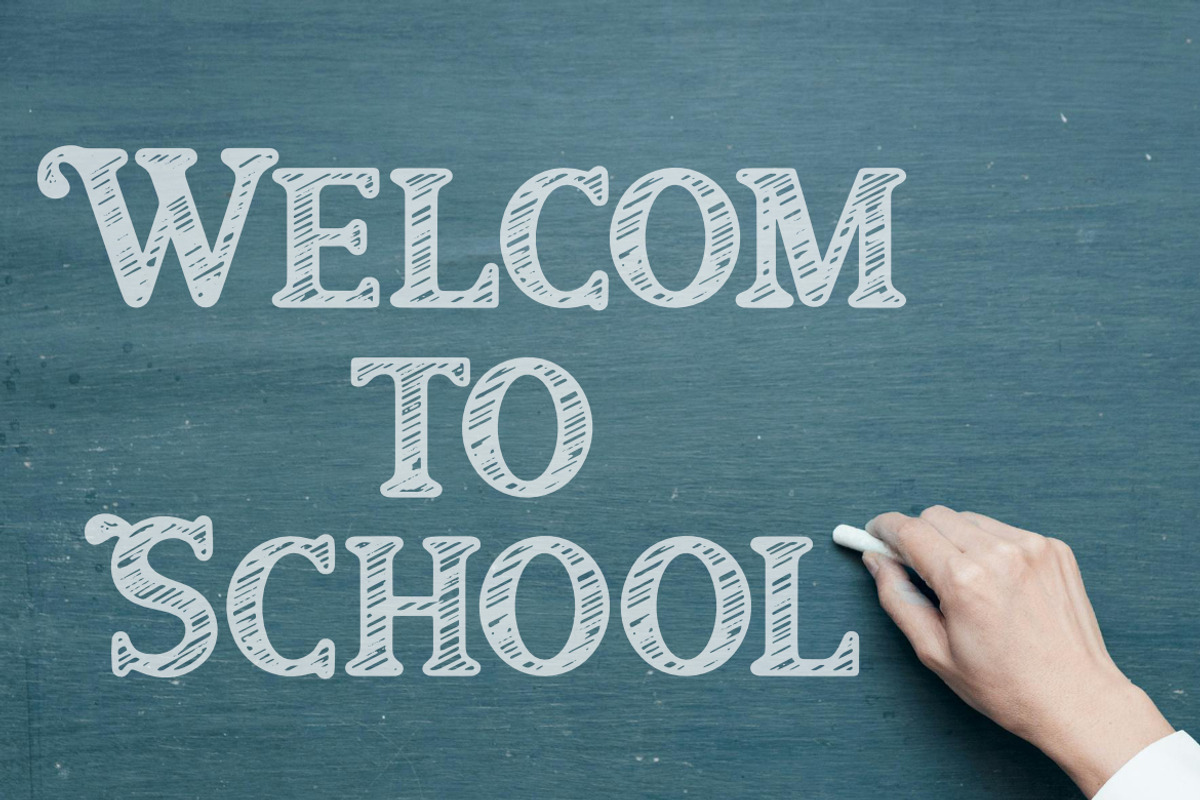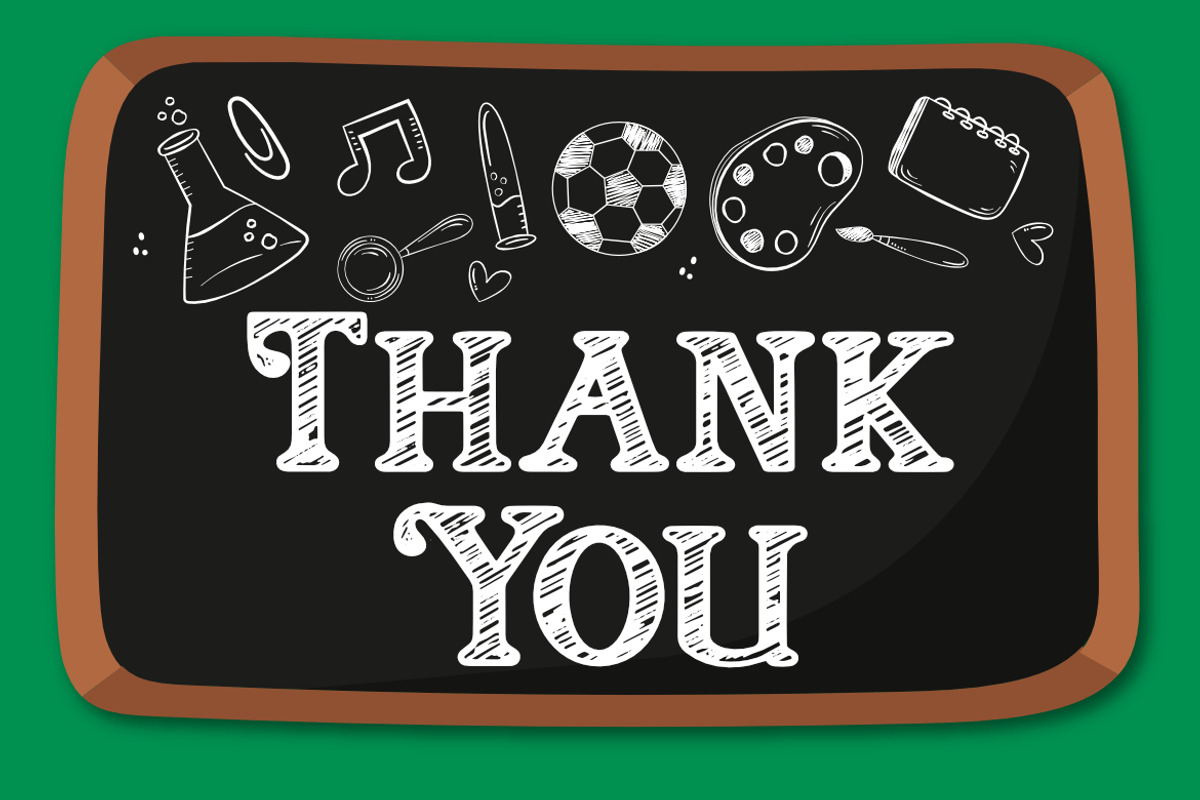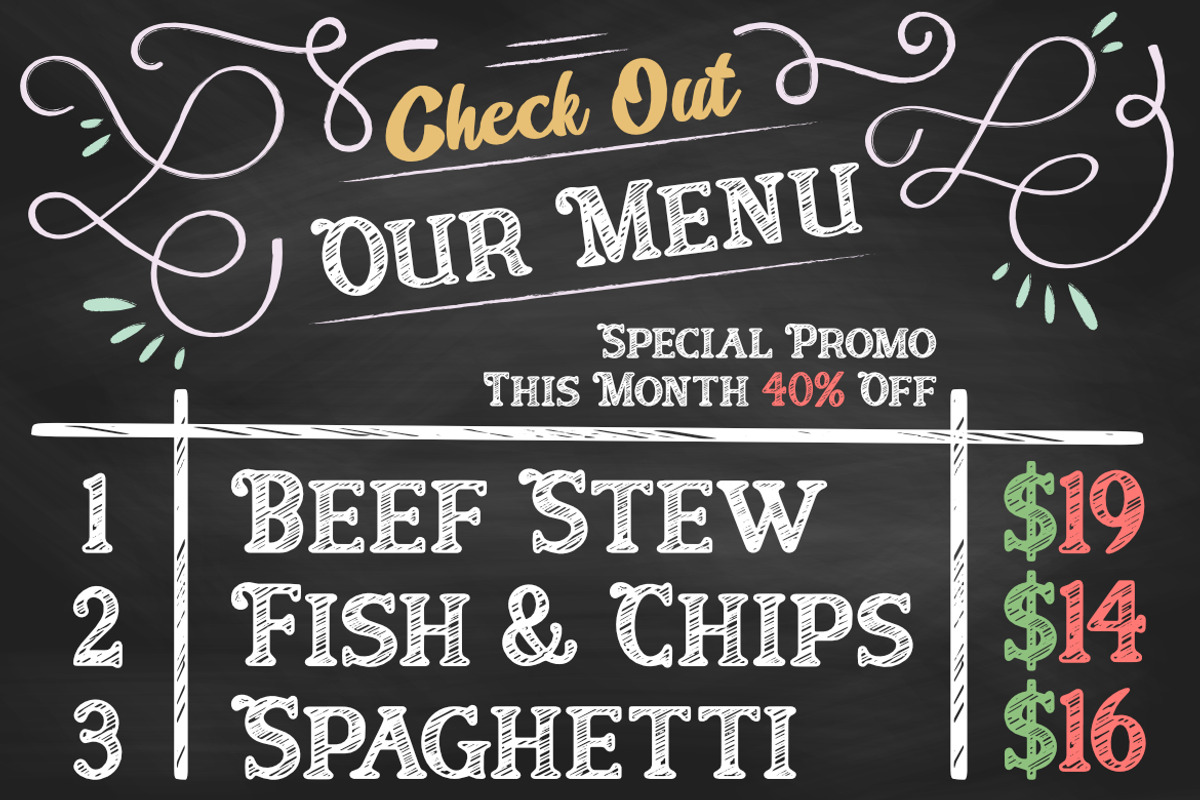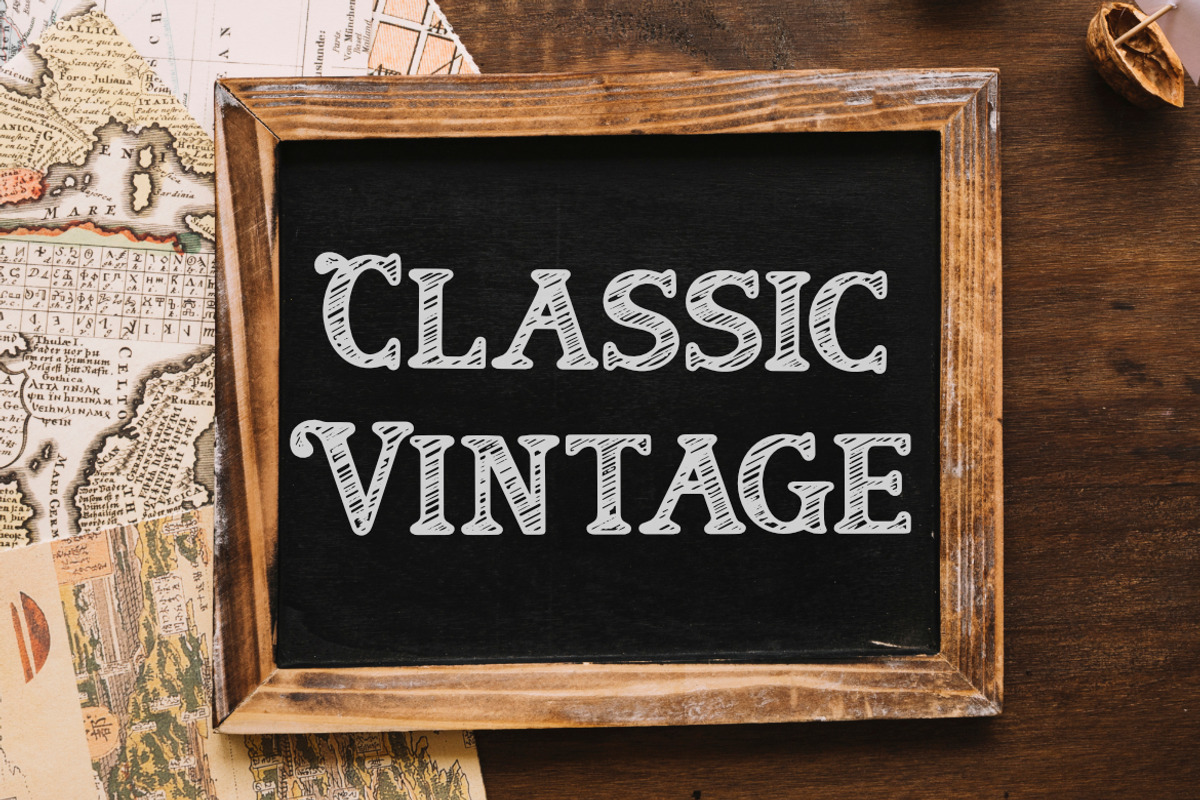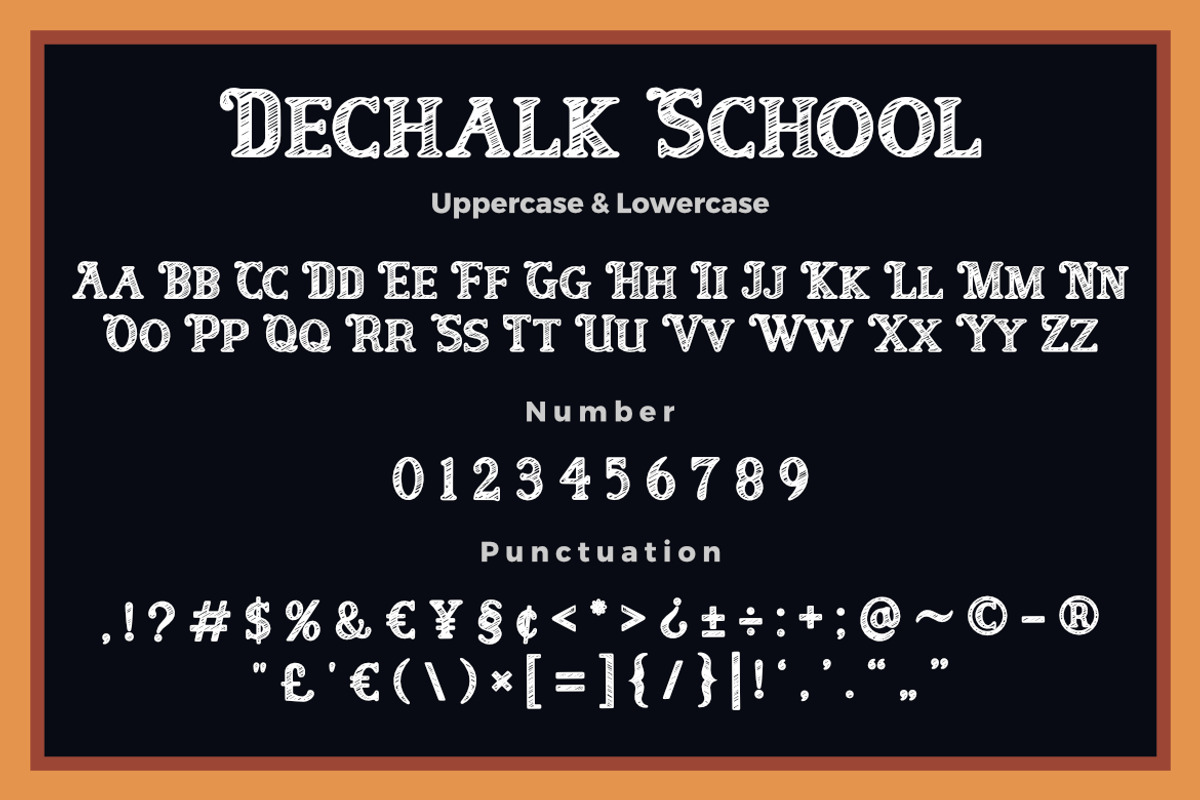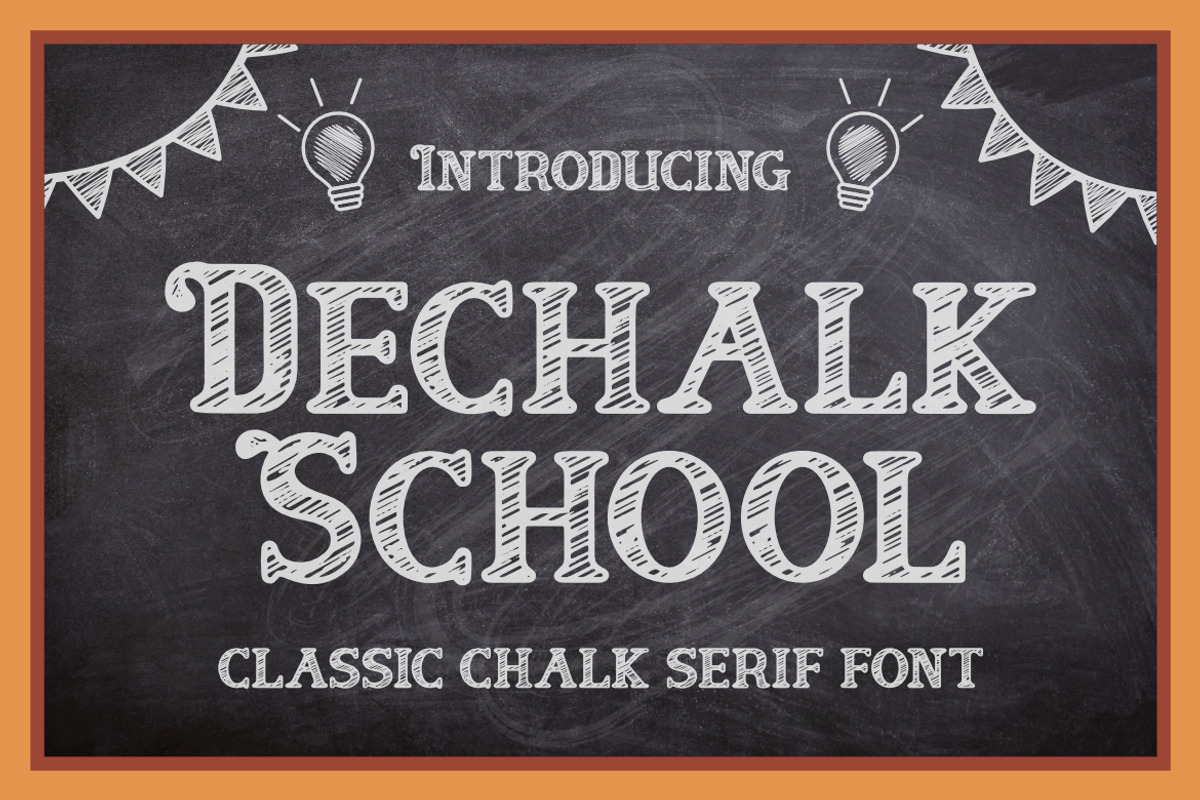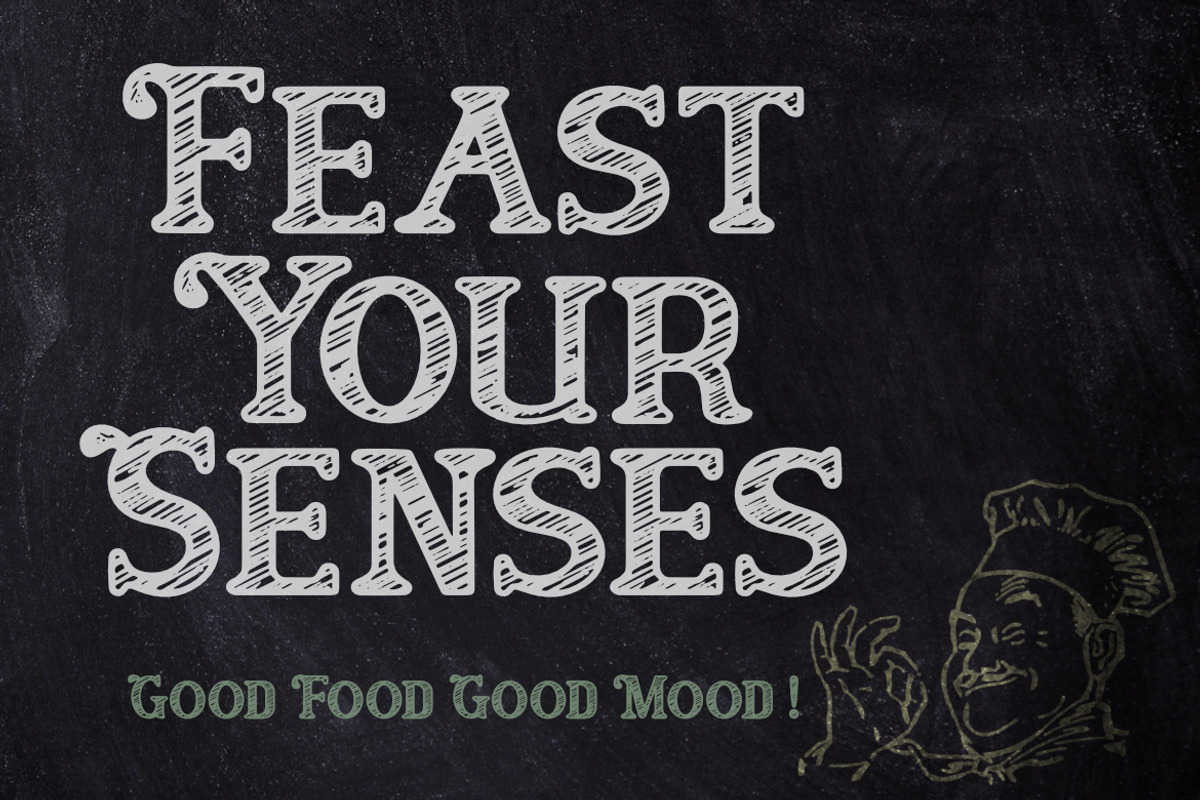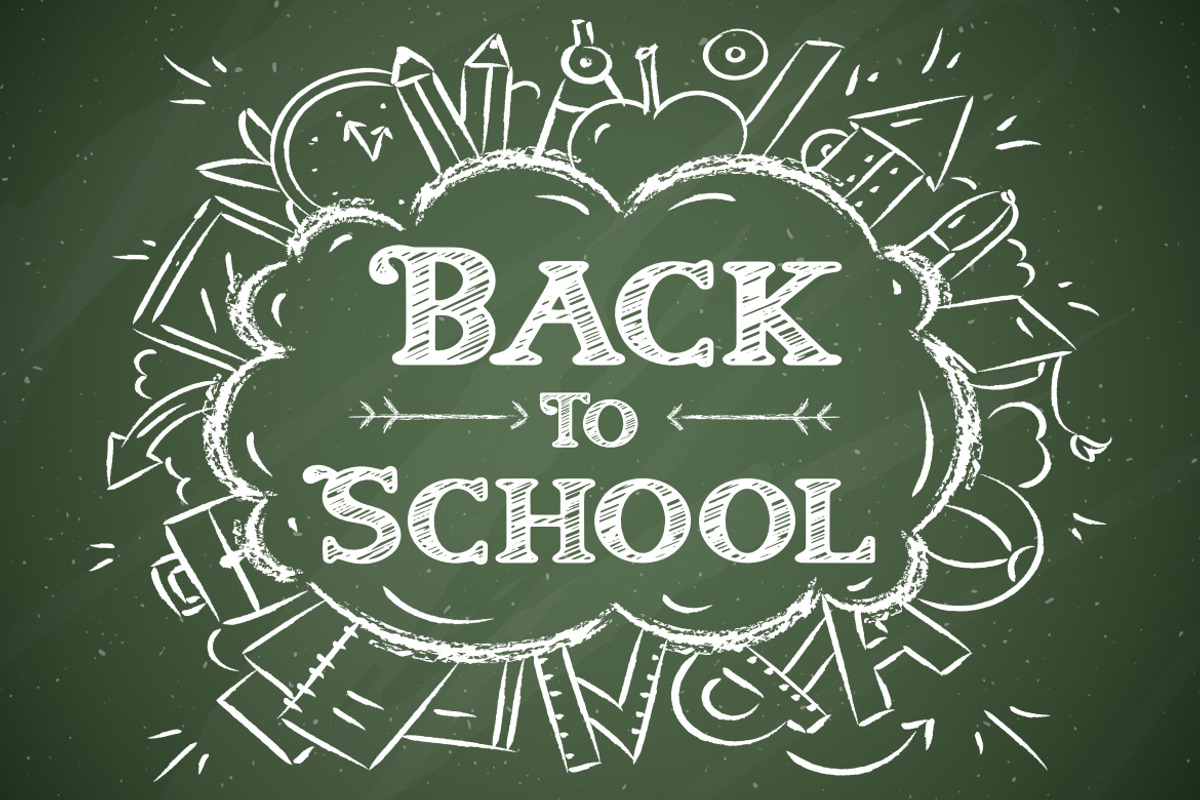
Dechalk School Classic Chalk Font
Dechalk School Classic Chalk Serif Font, This font is made with a high premium quality level which you can use as flyers, quotes, posters, banners, packaging, merchandise, logotypes and much more.